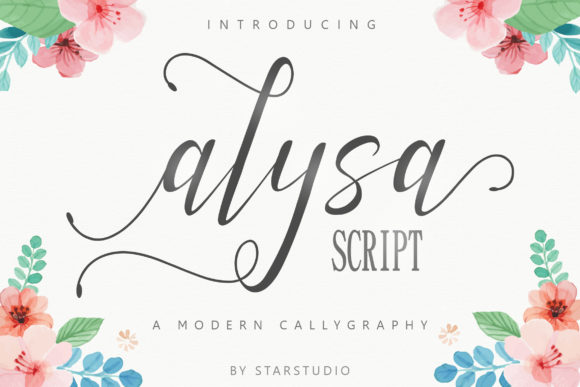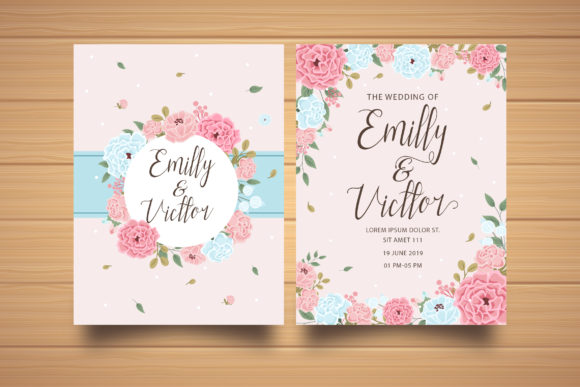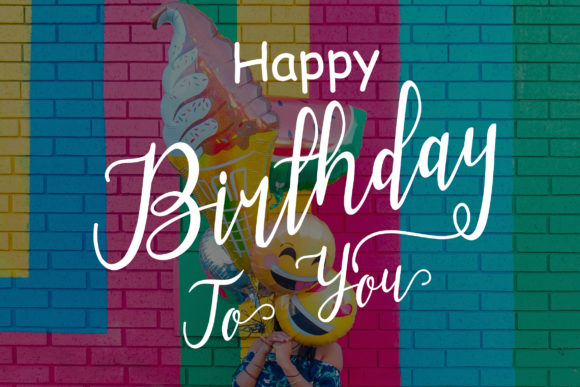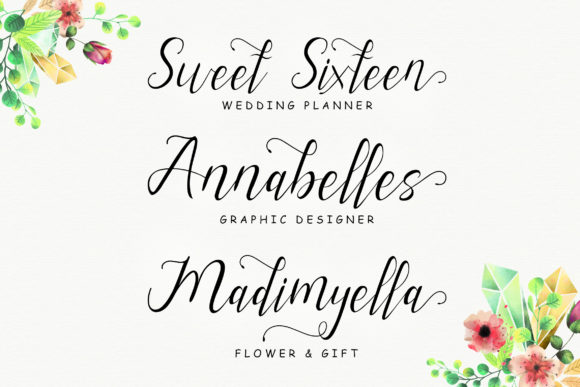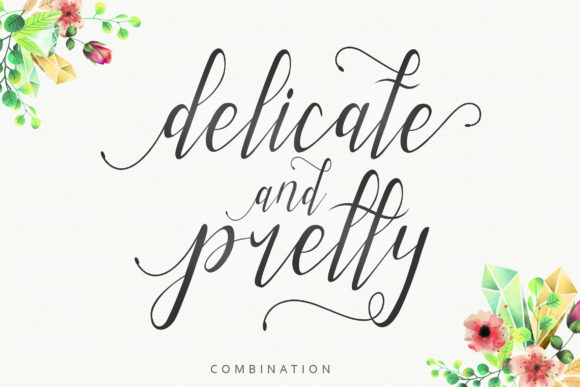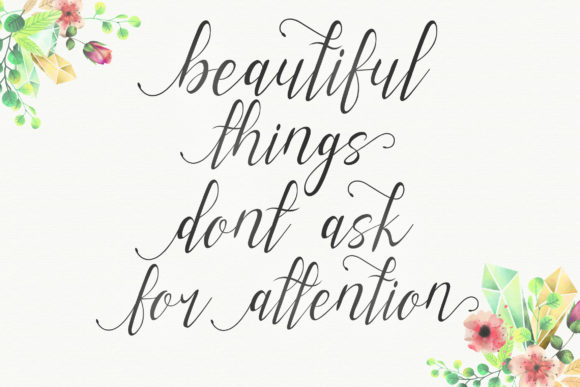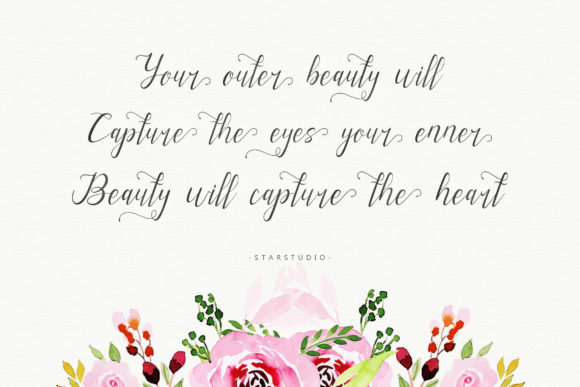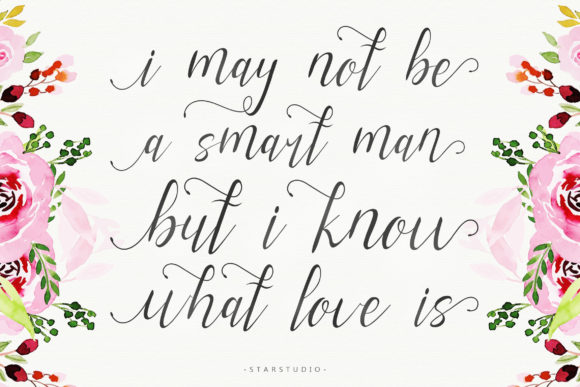
Alysa Script Font
About Alysa Script Font
The Alysa is an elegant script font. It’s prefect to add a hand-lettered touch to your designs.
It has a super flirtatious base line, which works perfect for branding, logos, greeting cards, wedding stationery, quotes, and every other design which needs an authentic touch.